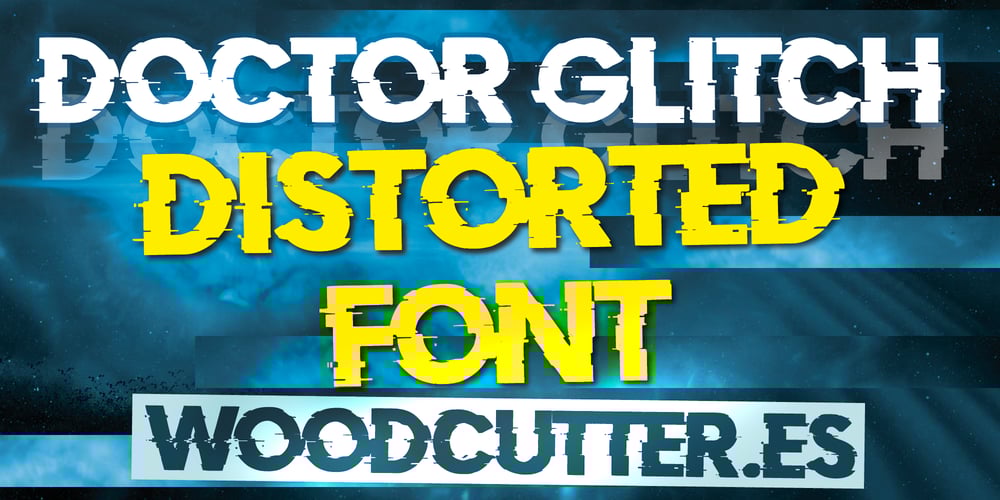
Doctor Glitch Font Family was designed by Jordi Manero and published by Woodcutter. Doctor Glitch contains 1 styles and family package options. “Doctor Glitch” is a typography with a distorted appearance, as if the signal emitting it were defective and distorted by poor signal quality. It evokes a futuristic and technological aesthetic, perfect for designs seeking a retro-futuristic feel from the last century. Each letter seems affected by digital interference, adding a touch of mystery and originality. Use this font to stand out in graphic design projects where you want to convey a sense of advanced technology and unique visual styles.